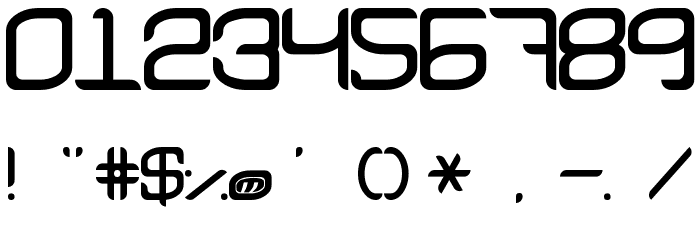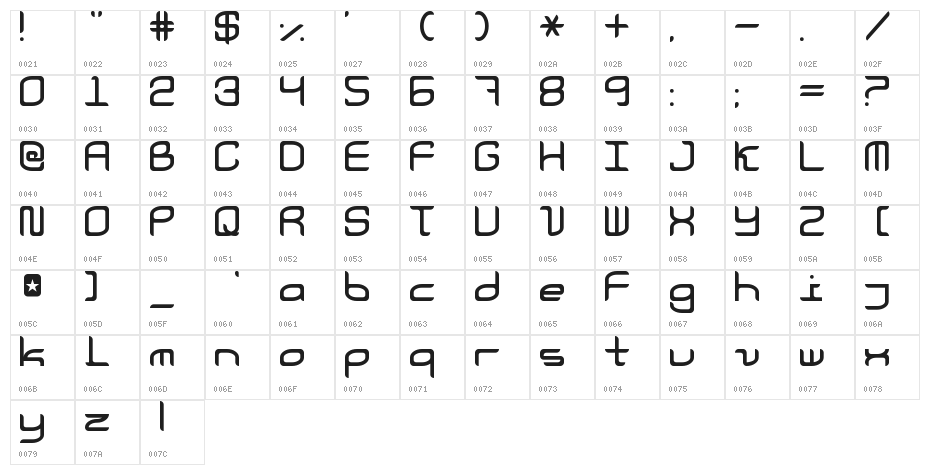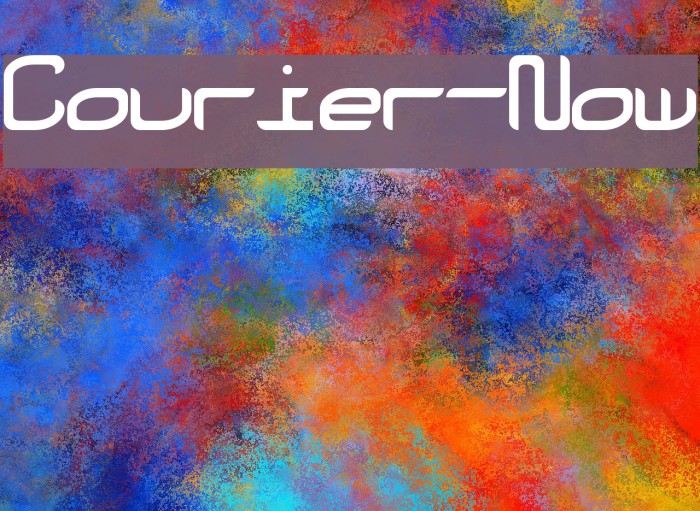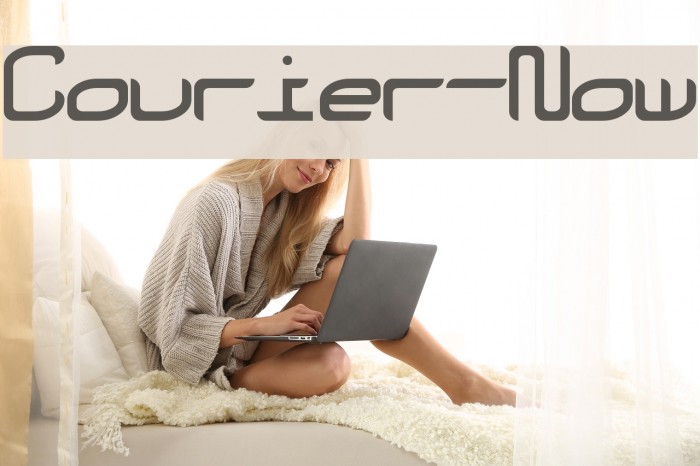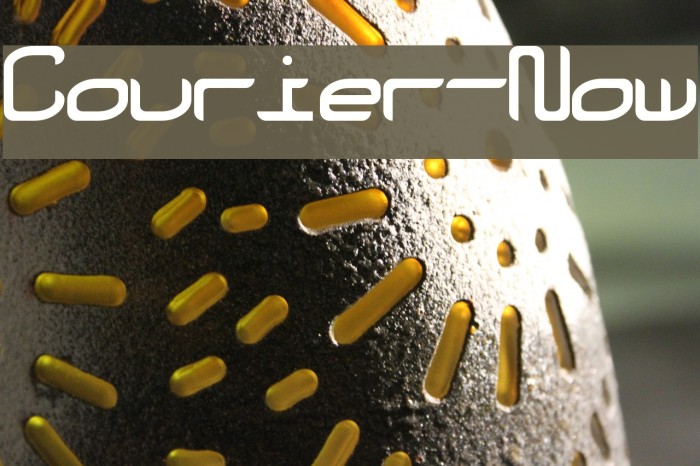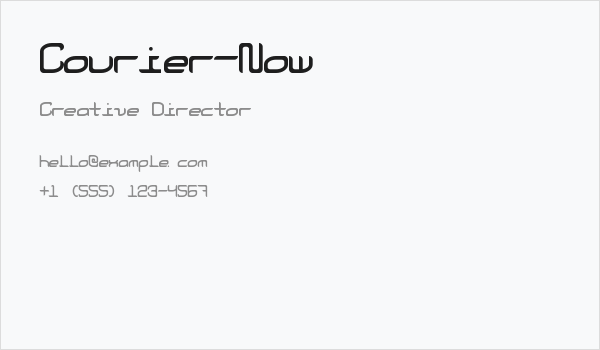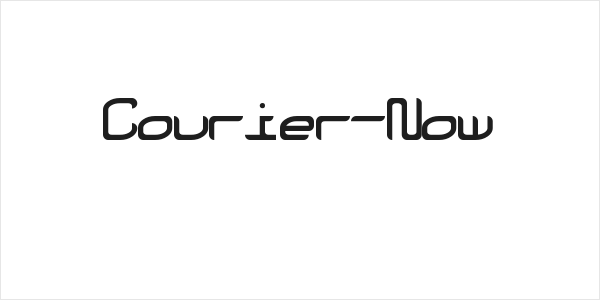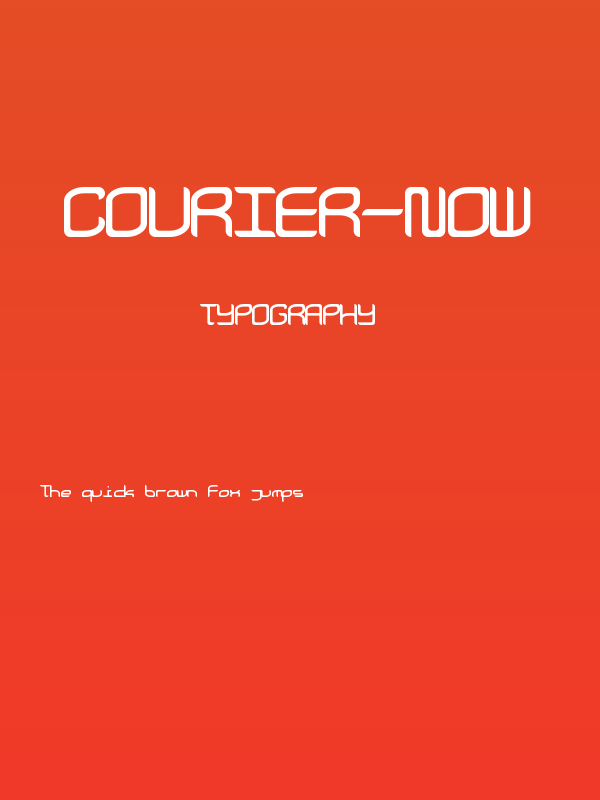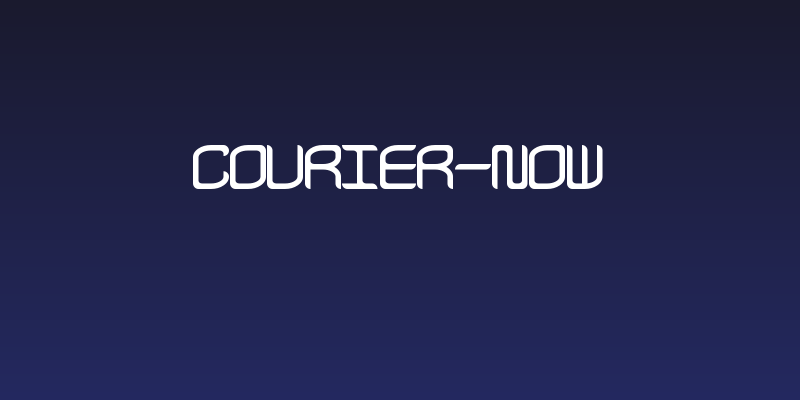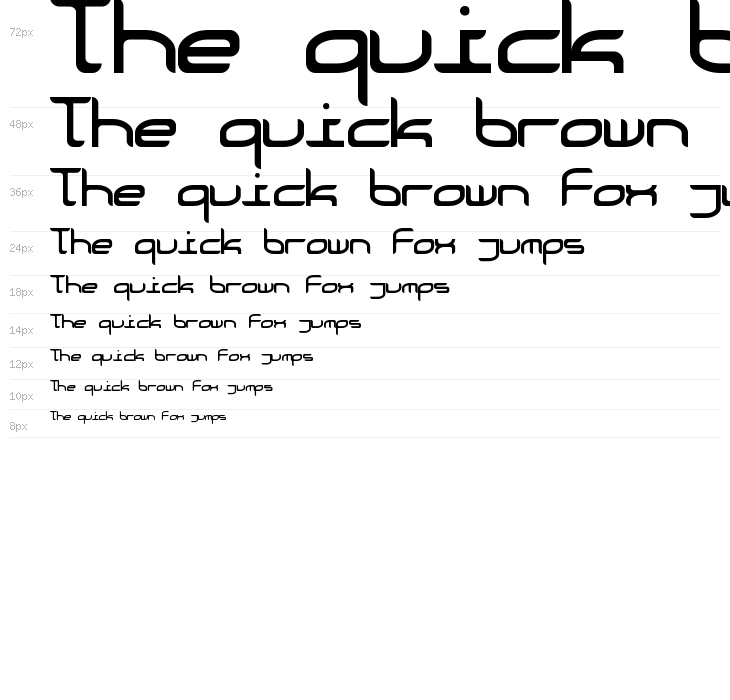
Courier-Now Font
Courier-Now Description
This font features a modern, futuristic design with rounded edges and a monospaced structure. Each character is uniformly spaced, providing a clean and organized appearance. The uppercase letters are bold and prominent, while the lowercase letters maintain a consistent style with slightly softer curves. The numerals are distinct and easily readable, matching the overall geometric aesthetic. Special characters are well-integrated, maintaining the font's cohesive look. This font's unique style makes it suitable for projects that require a contemporary and tech-savvy feel.
| Use Case | Logos, Coding, Digital Media |
| Proposed Projects | Ideal for tech branding, coding interfaces, modern posters, and digital media. |